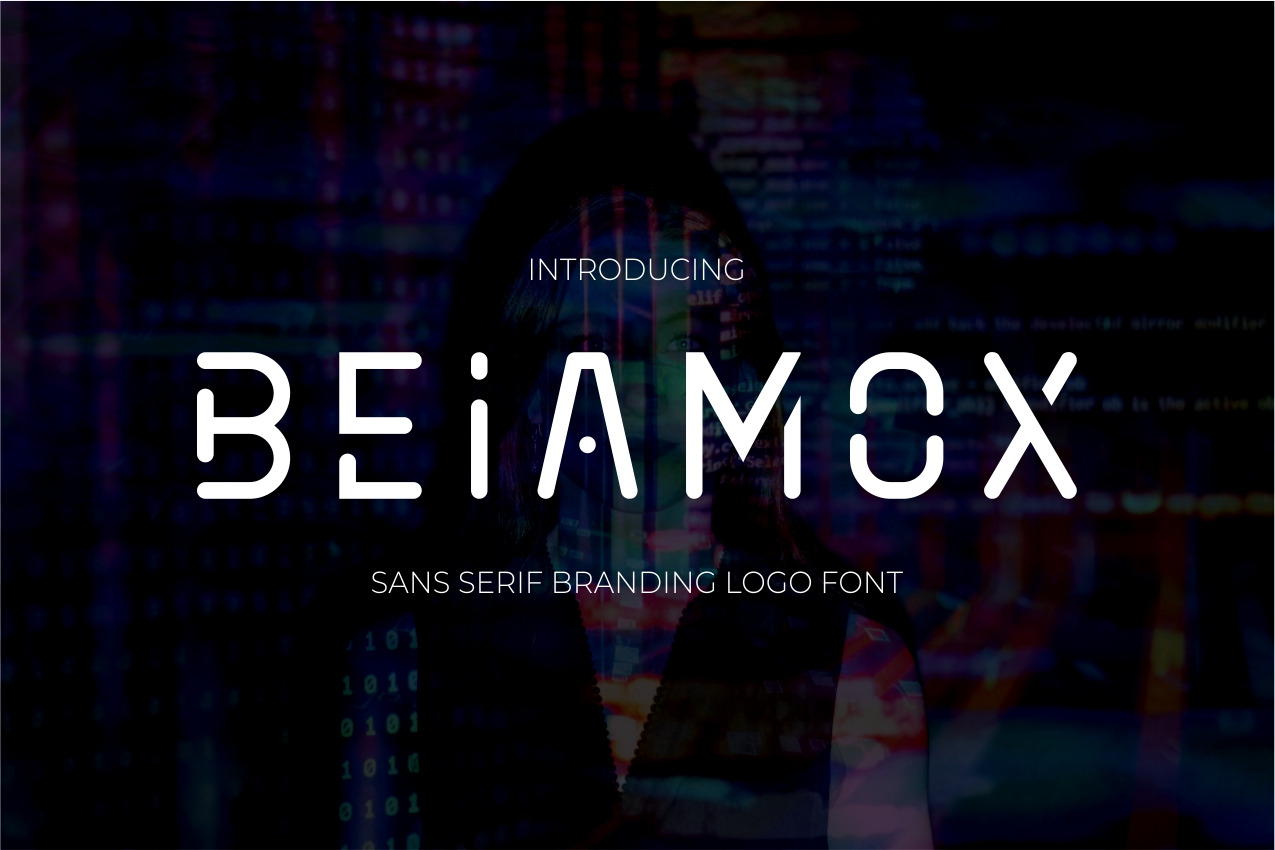
Beiamox futuristic font
According to market demand, fonts tend to be modern, simple and trendy styles, so I decided to make a futuristic font that is in your view. The Beiamox font is a futuristic font that is all the time modern and very popular, coming in a modern style to become a favorite with the market. We keep this font looking elegant, classy, modern, stylish, modern, and easy to use.
Beiamox Font is a great choice for logos, brands, company names, fashion, food menus, brand names, branding, quotes, album covers, and other projects. Beiamox fonts are here to take your designs to the next level.
• All caps